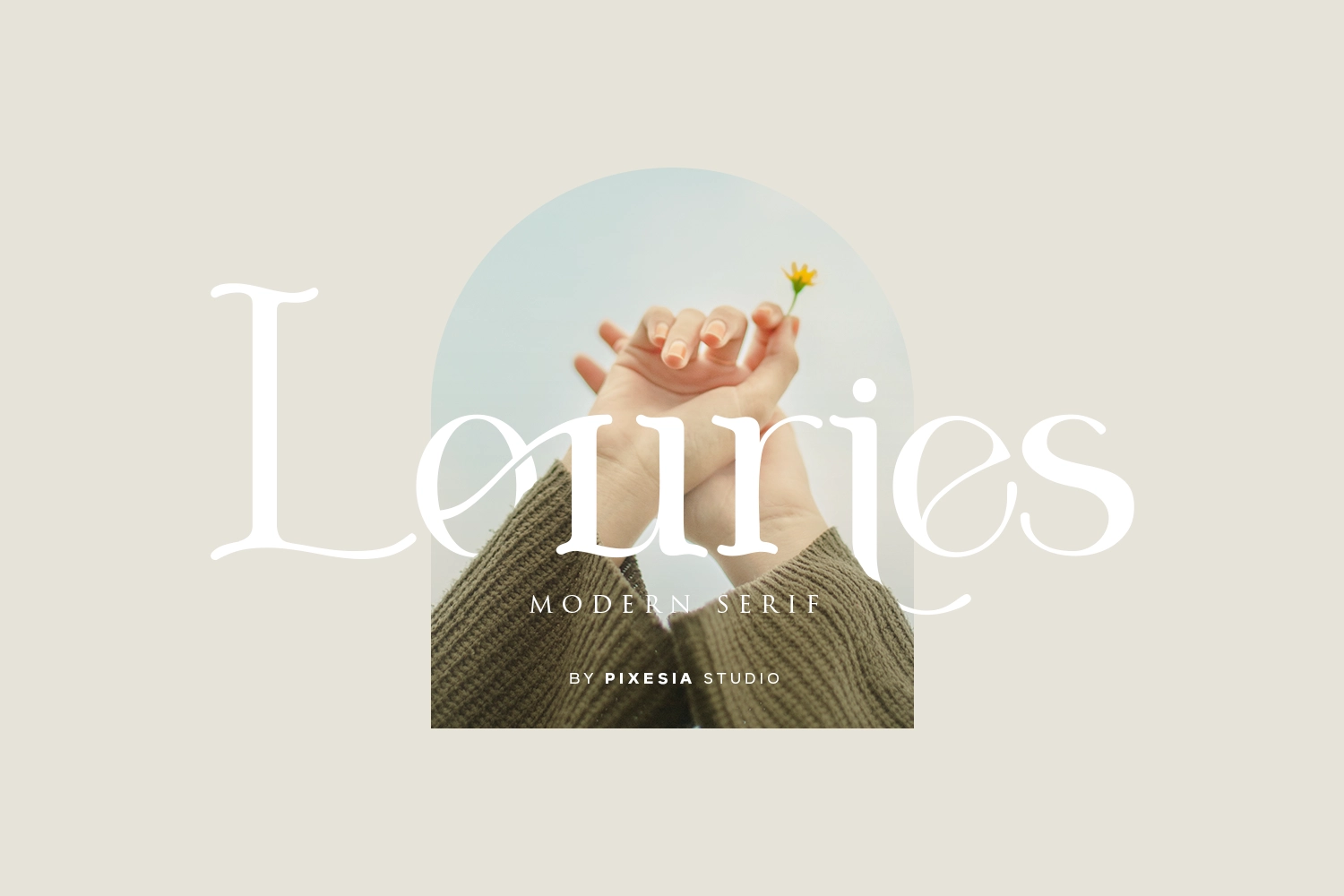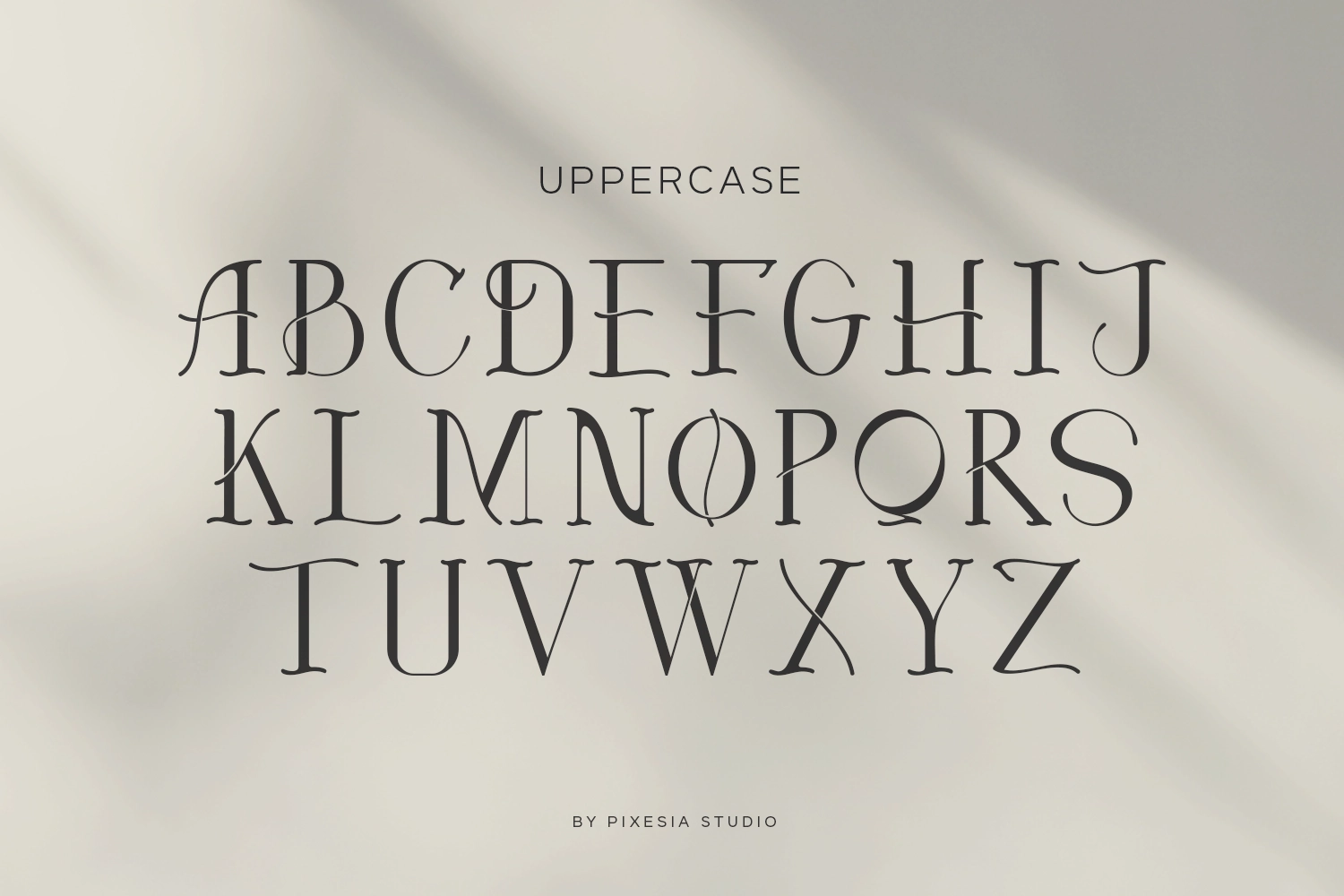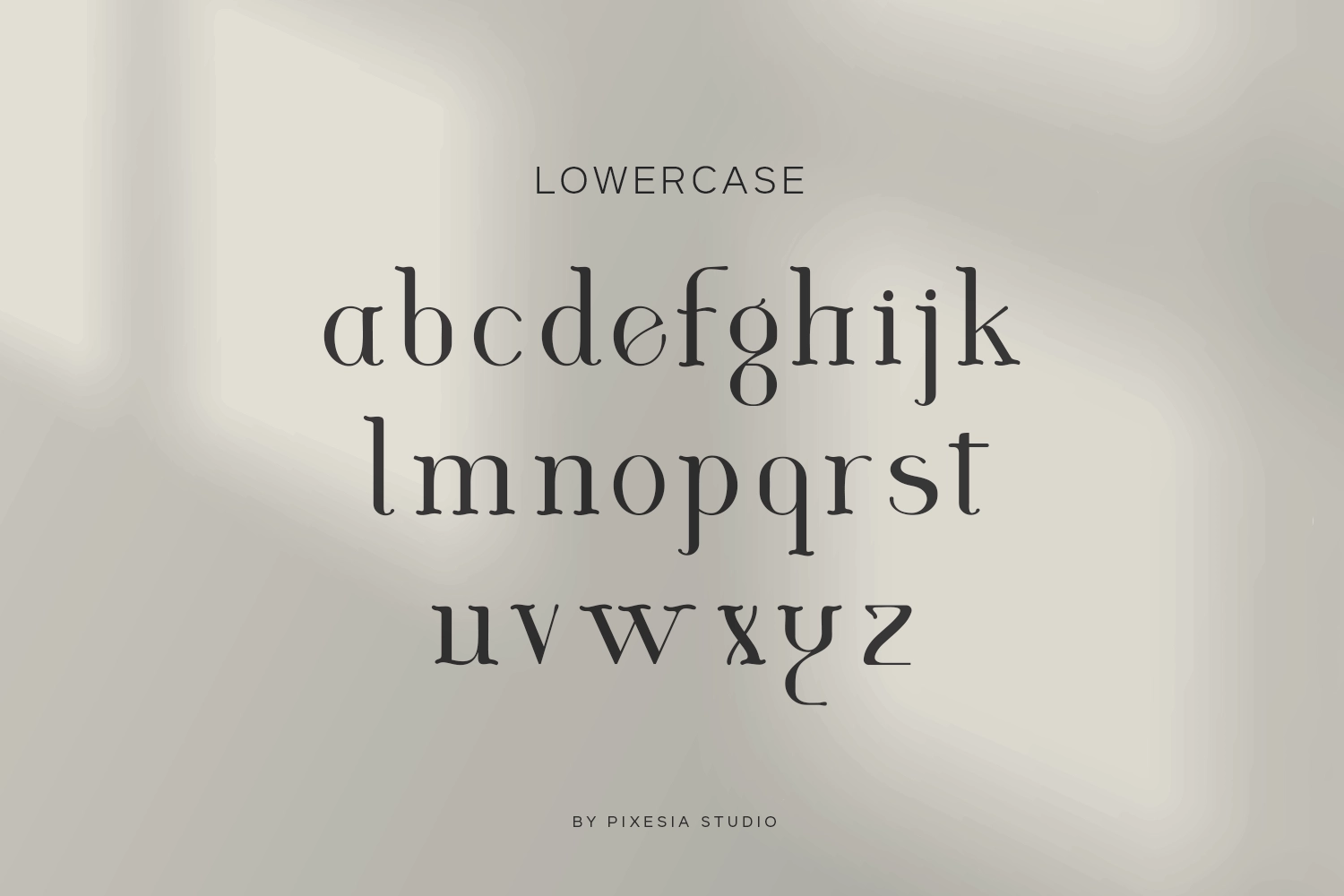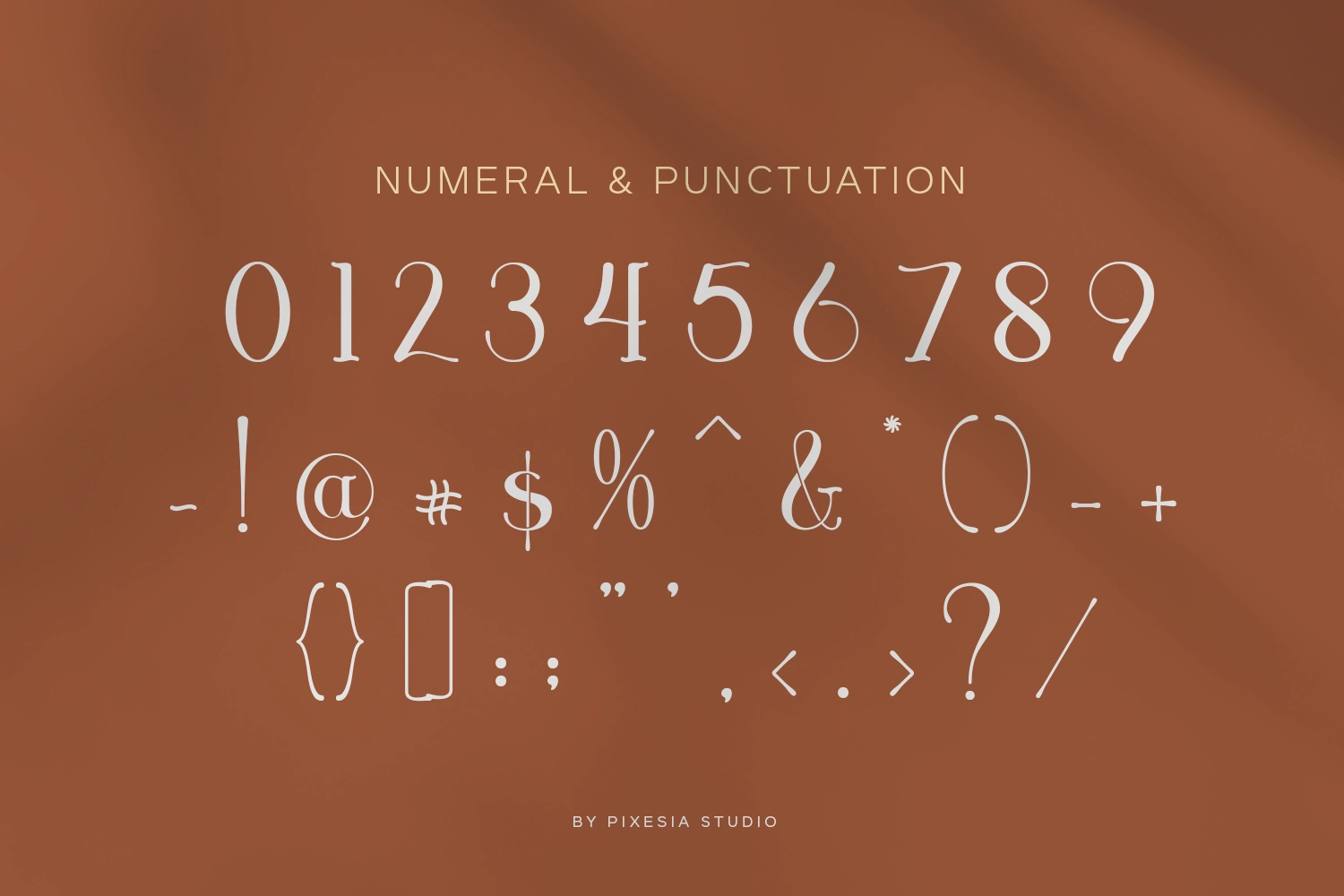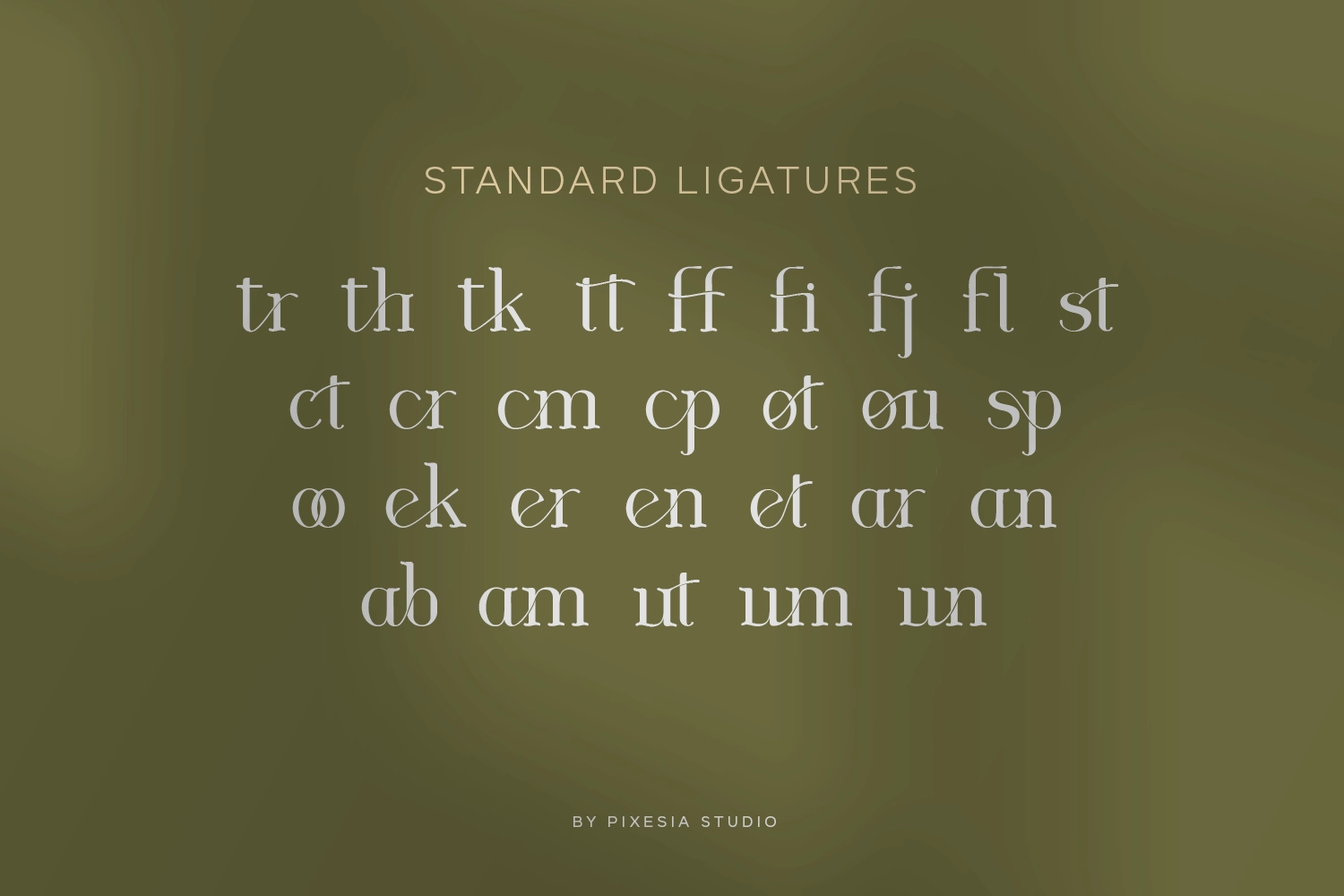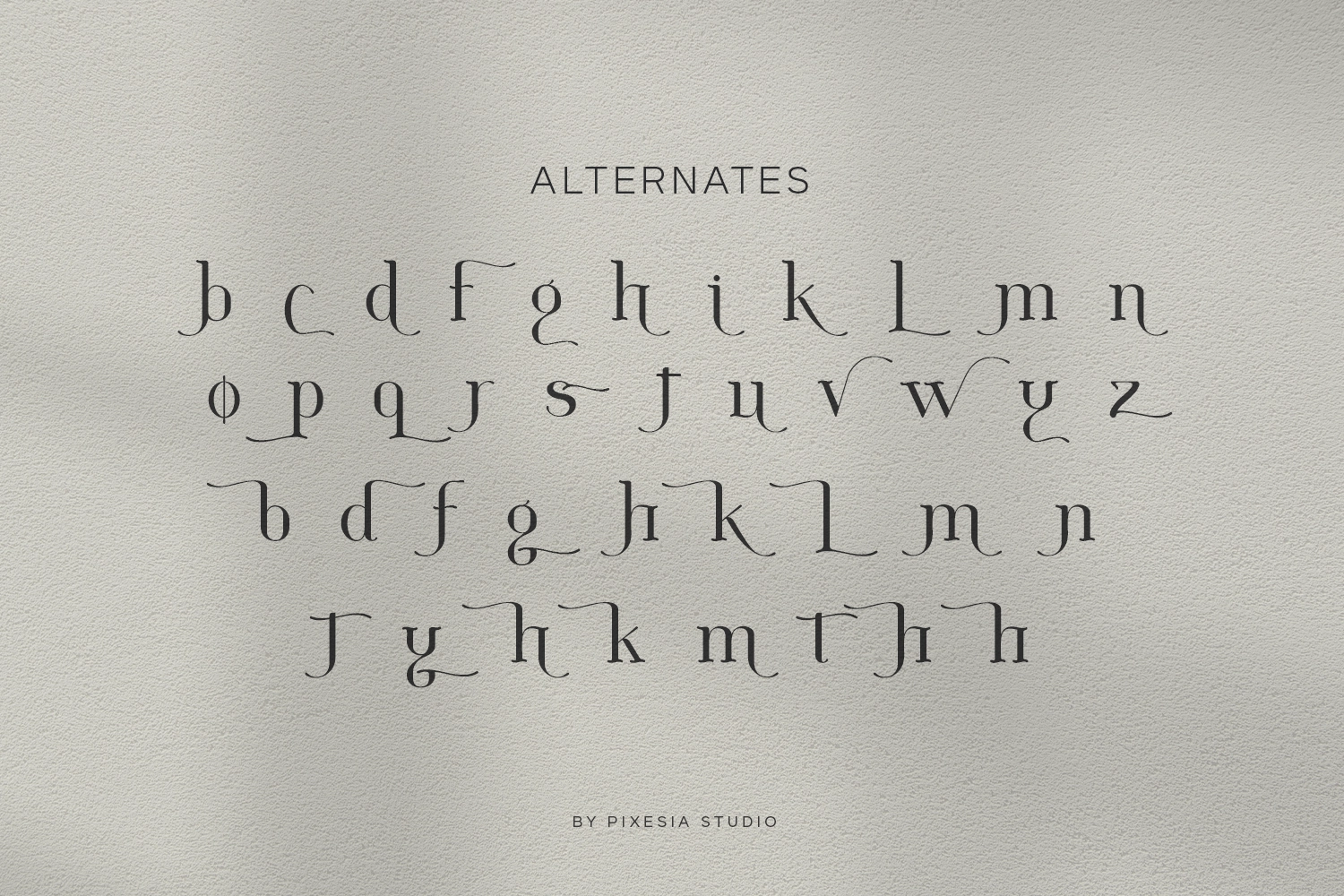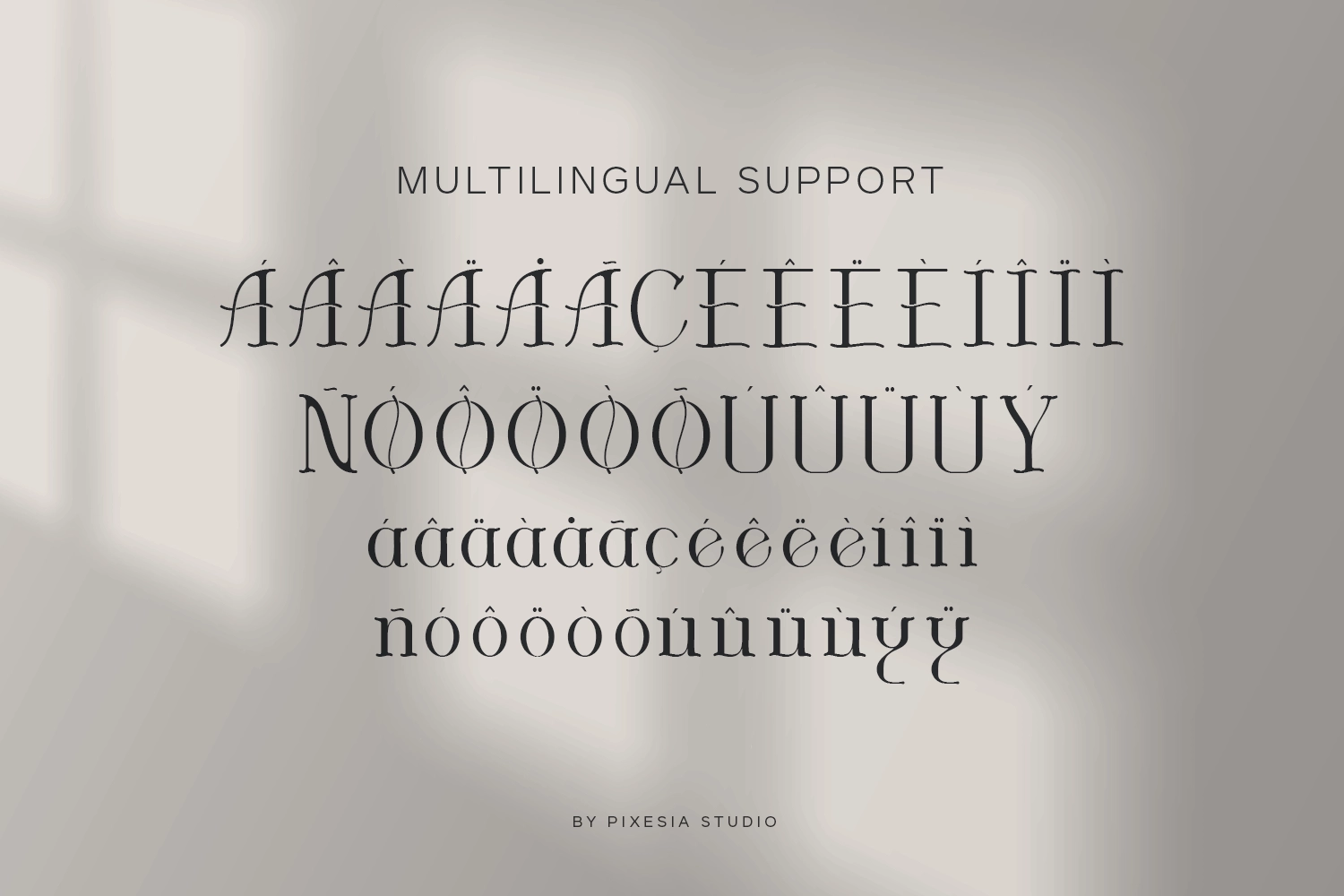
Louries - Modern Serif Font
Louries is a fancy modern and creative serif font with a bunch of ligatures and alternates that is really unique. It works great for logos, already matched up and ready to be used together for your next design! For those of you who look for a touch of elegant, stylish, classy, chic and modernity for your designs, this font was created for you!
• Ligatures & Alternates
• Uppercase and Lowercase letters
• Numbering and Punctuations